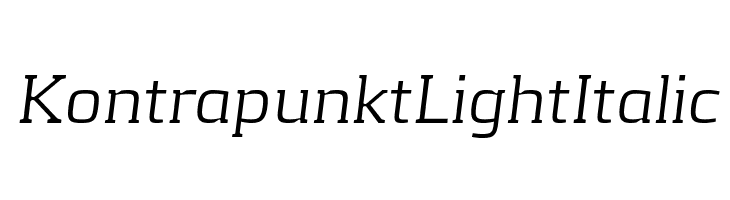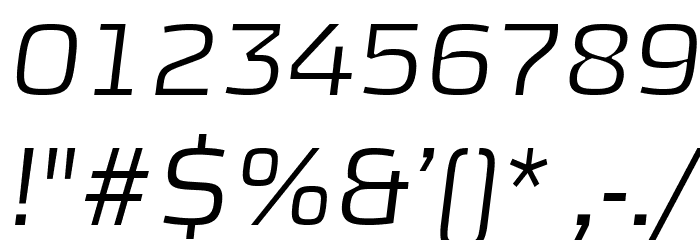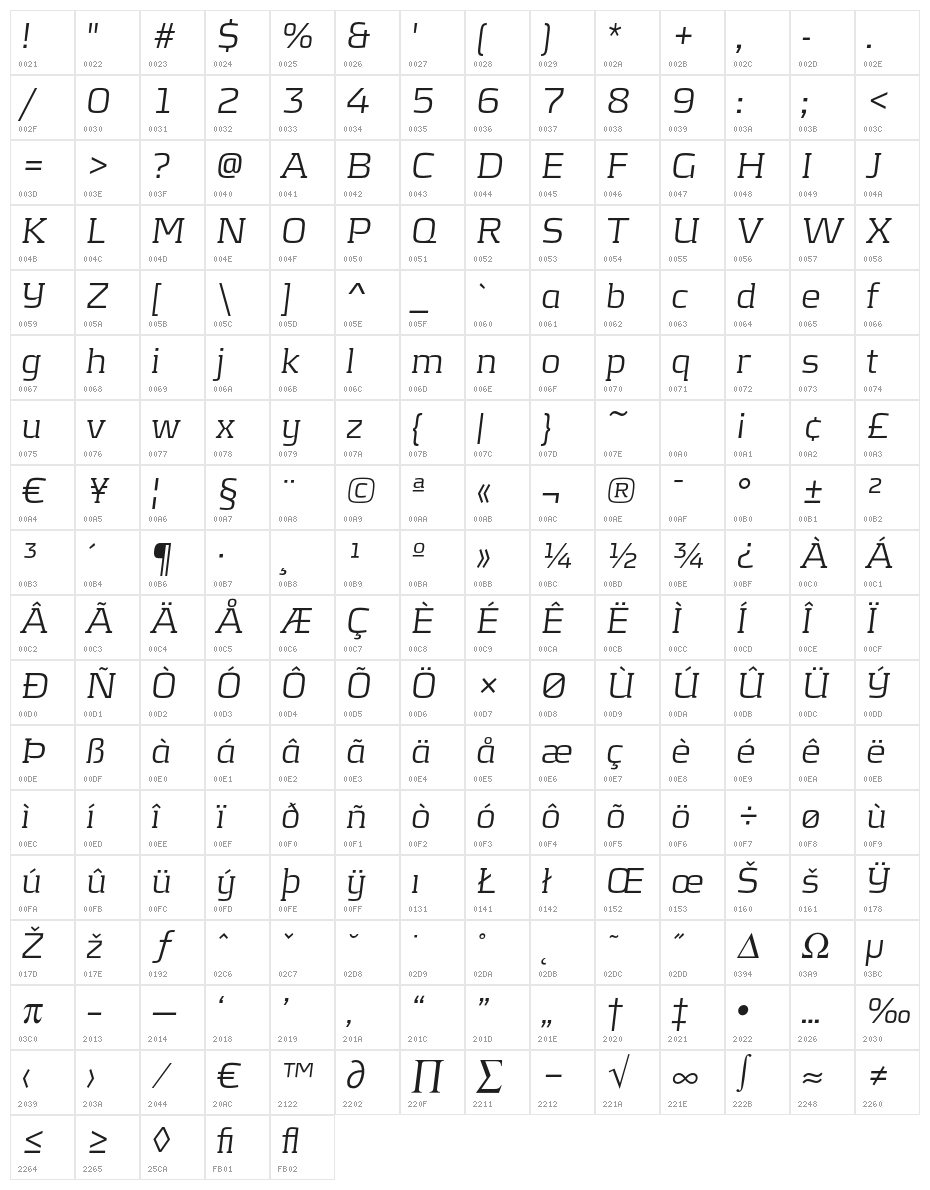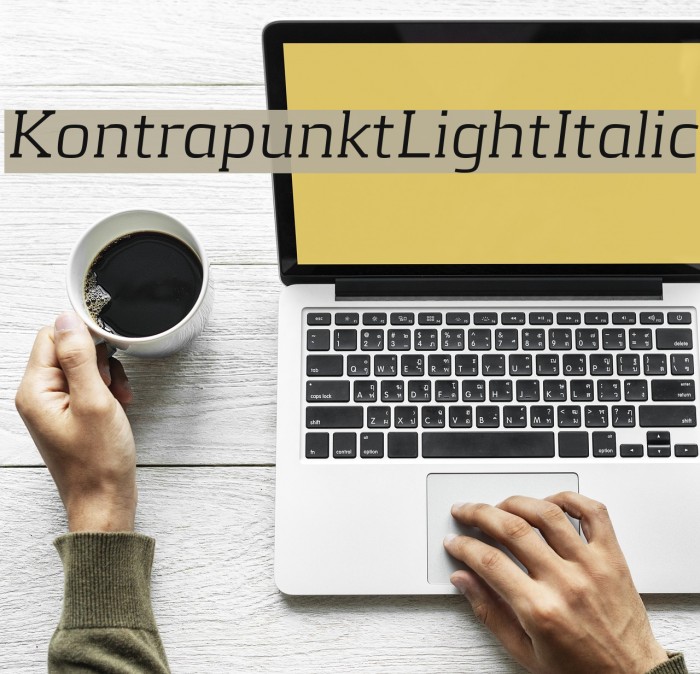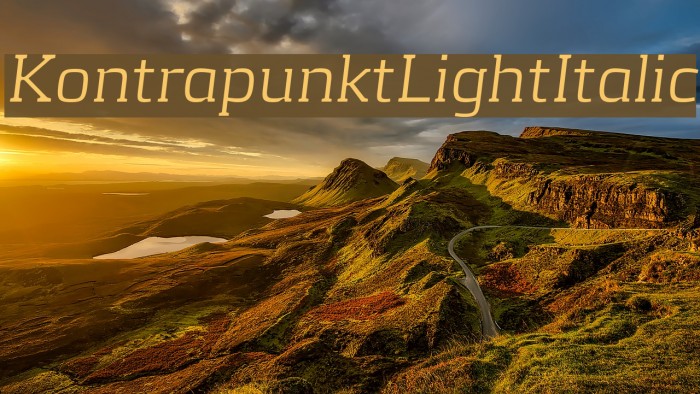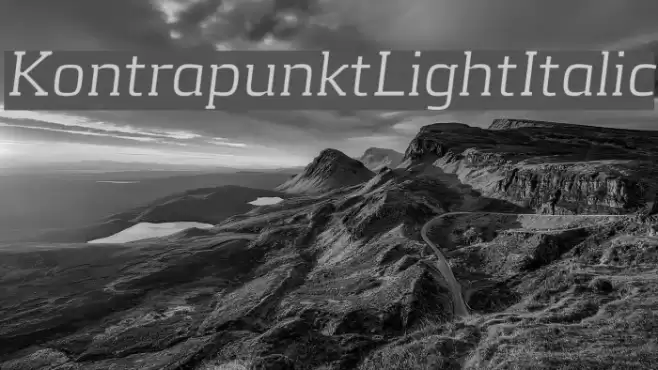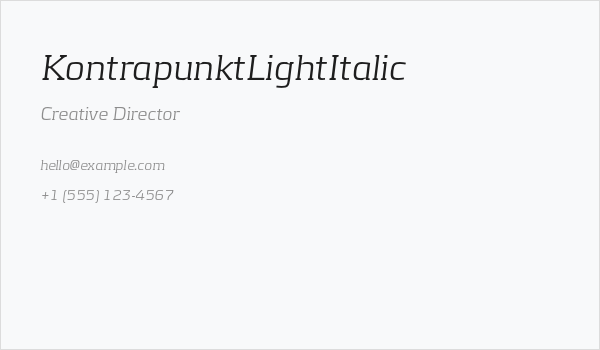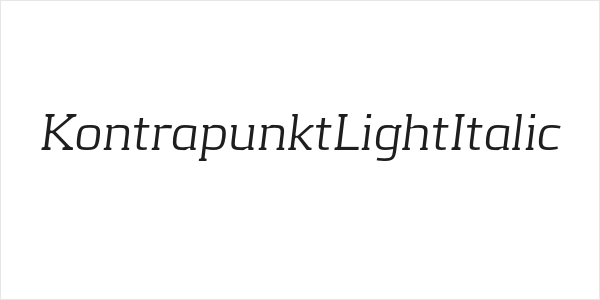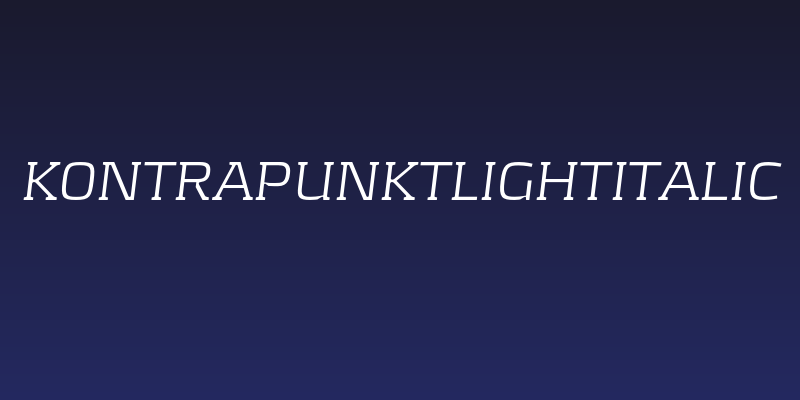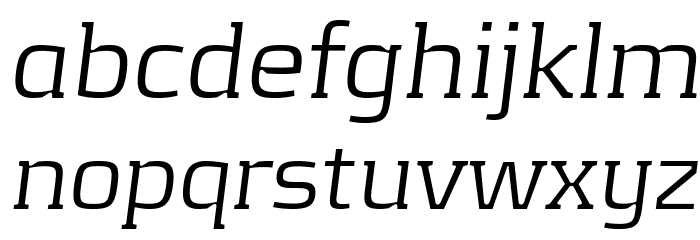
KontrapunktLightItalic Font
KontrapunktLightItalic Description
This font exhibits a sleek and modern design with a subtle italic slant, giving it a dynamic and forward-moving appearance. The characters are crafted with clean lines and a uniform stroke width, contributing to a sense of clarity and readability. The uppercase letters maintain a consistent height, while the lowercase letters are slightly more rounded, offering a harmonious balance between formality and approachability. The numerals are distinct and easily distinguishable, ensuring legibility in various contexts. Special characters are well-integrated, maintaining the overall aesthetic of the font.
| Proposed Projects | Ideal for branding, editorial design, and digital interfaces where a contemporary and professional look is desired. |